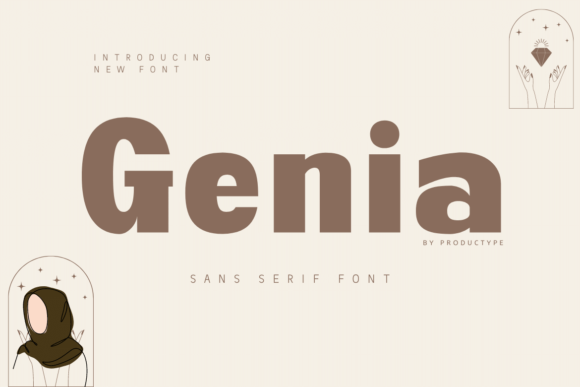
Introducing Genia Font: A Modern and Bold Sans Serif for Elevating Your Creations
In the realm of typography, fonts play a pivotal role in conveying messages, expressing emotions, and creating lasting impressions. Among the myriad of fonts available, Genia font stands out as a modern and bold sans serif font that can significantly enhance your font library. Its versatility and aesthetic appeal make it an excellent choice for a wide range of projects, from digital content to print materials. In this article, we’ll delve into the features, benefits, and potential applications of Genia font, exploring how it can elevate your creations to new heights.
Key Features of Genia Font
- Modern and Bold Design: Genia font boasts a contemporary and assertive design, making it perfect for projects that demand attention and clarity.
- Sans Serif Style: The clean lines and lack of decorative flourishes give Genia a sleek, modern appearance that ensures legibility across various mediums.
- Versatility: Genia’s neutral design allows it to adapt seamlessly to different topics and themes, making it a valuable addition to any font collection.
- Elegance and Readability: Despite its boldness, Genia maintains an air of elegance and is highly readable, even at smaller sizes.
The Benefits of Using Genia Font
Choosing the right font for your project can be a daunting task, but Genia font offers several advantages that make it an attractive option:
- Enhanced Visual Appeal: Genia’s modern and bold design instantly captures attention, adding a professional and contemporary touch to your work.
- Improved Readability: The sans serif style and careful letterform design ensure that your text remains clear and easy to read, even for lengthy content.
- Versatility Across Mediums: Whether you’re working on digital content, print materials, or both, Genia performs exceptionally well, maintaining its aesthetic appeal across various platforms.
- Time-Saving: With Genia, you can achieve professional-looking results without spending hours selecting and pairing fonts, making it a practical choice for tight deadlines.
Exploring the Applications of Genia Font
Genia’s adaptability and aesthetic qualities make it suitable for a wide array of projects. Here are some scenarios where Genia font can make a significant impact:
- Digital Content: For blogs, social media posts, and website content, Genia’s modern look and readability make it an excellent choice for engaging your audience.
- Print Materials: From brochures and flyers to posters and business cards, Genia’s bold design ensures your print materials stand out.
- Branding and Marketing: Establish a strong brand identity with Genia, which can be used consistently across all your marketing materials for a cohesive look.
- Presentations: Elevate your presentations with Genia, making your slides more engaging and professional.
Tips for Effectively Using Genia Font
To maximize the potential of Genia font, consider the following tips:
- Pairing: While Genia is versatile on its own, pairing it with complementary fonts can add depth and interest to your designs. Opt for fonts that maintain a similar weight and style to ensure harmony.
- Hierarchy: Use different sizes and weights of Genia to create a visual hierarchy, guiding your audience through the content smoothly.
- Color: Experiment with color to enhance Genia’s impact. Contrasting colors can make your text pop, while matching colors can provide a subtle, sophisticated look.
Genia font is a powerful tool for anyone looking to elevate their creative projects. Its modern and bold sans serif design, combined with its versatility and readability, makes it an invaluable asset to your font library. Whether you’re a designer, content creator, or marketer, Genia has the potential to enhance your work, making it more engaging, professional, and memorable. By incorporating Genia into your projects and following best practices for its use, you can ensure your creations stand out in a crowded digital landscape.
In the world of typography, fonts like Genia remind us of the importance of choosing the right typeface to convey our message effectively. With its wide range of applications and benefits, Genia font is poised to become a go-to choice for creatives worldwide. So, embrace the modernity and boldness of Genia, and watch your projects transform with the power of exceptional typography.